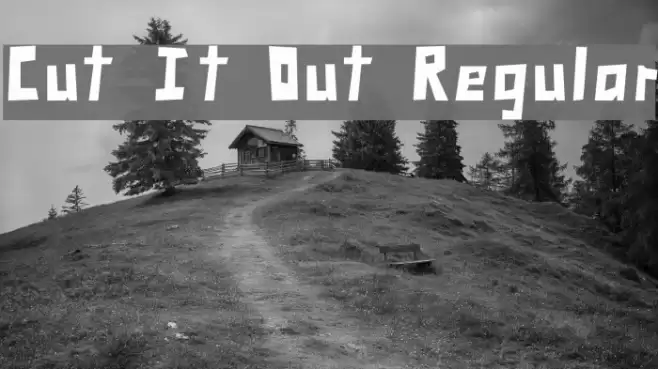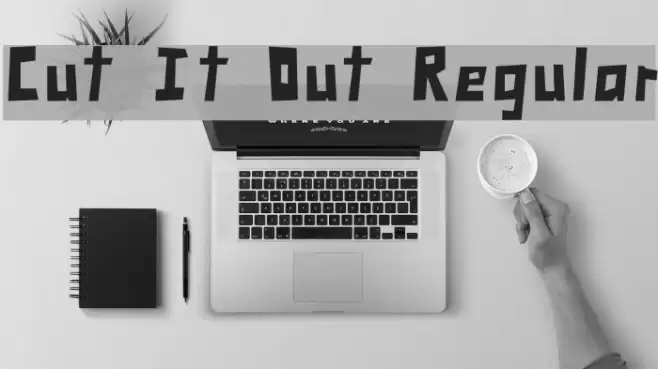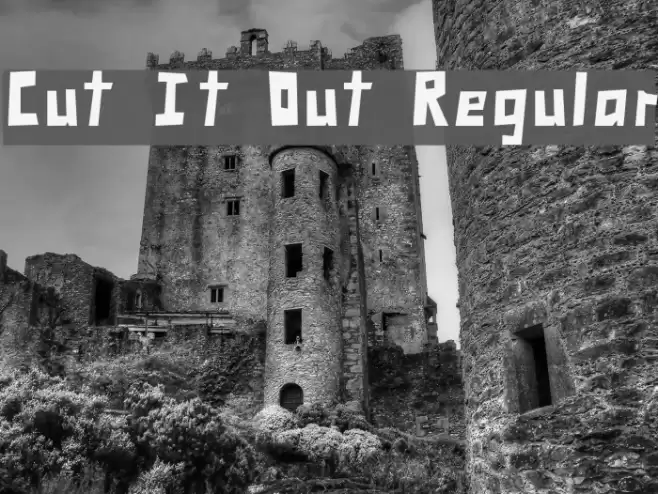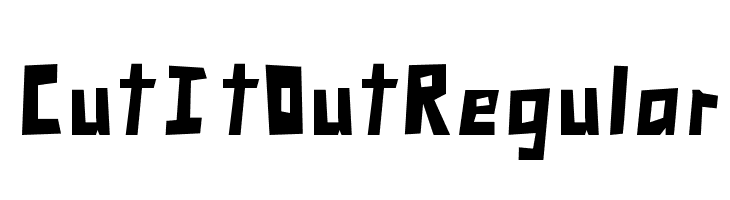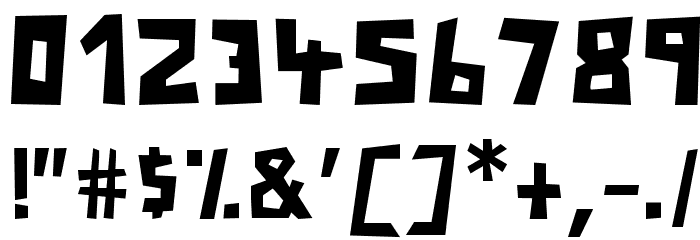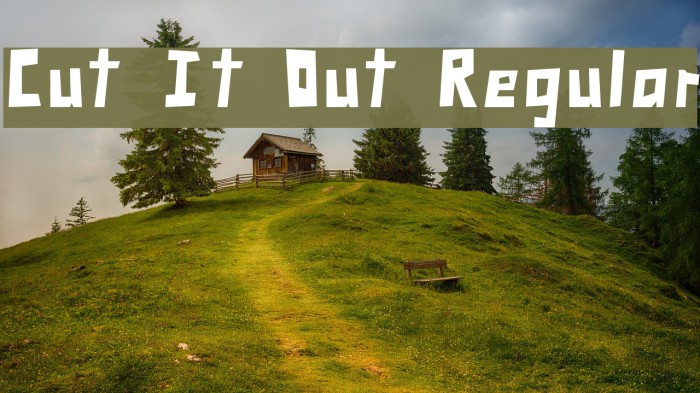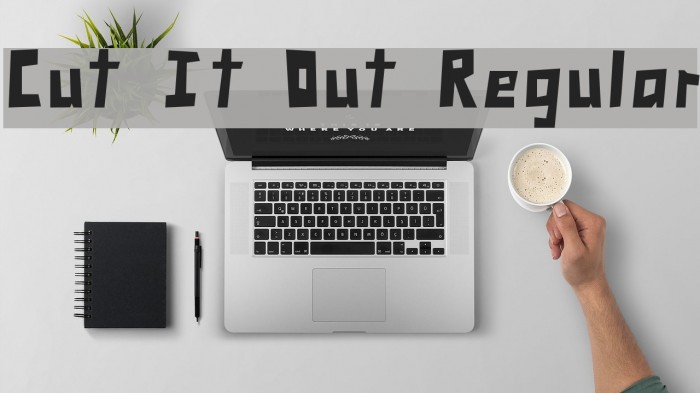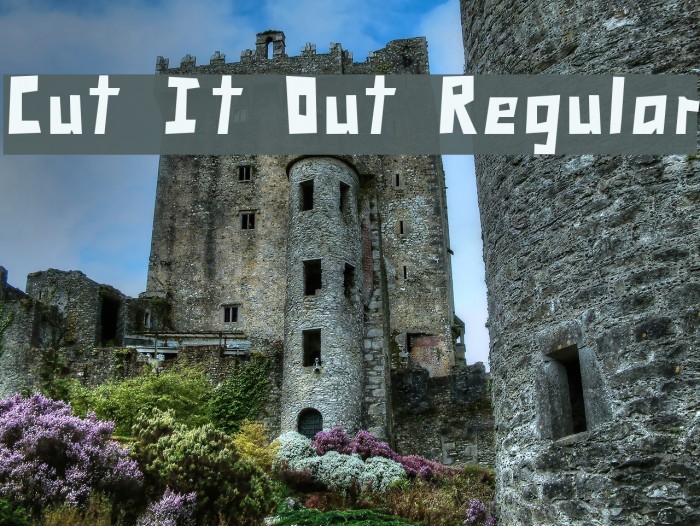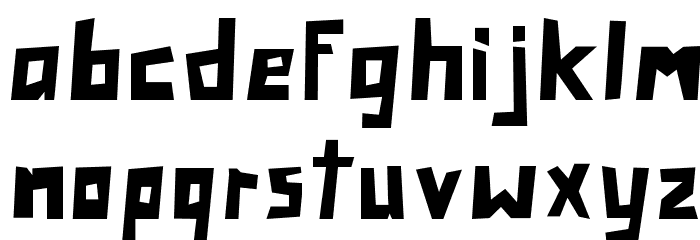
Cut It Out Regular Font
Cut It Out Regular Description
This font features a bold and playful design with irregular, jagged edges that give it a hand-cut appearance. The characters are blocky and slightly tilted, creating a dynamic and energetic feel. The uppercase and lowercase letters maintain a consistent style, with exaggerated angles and varying stroke widths. Numbers and special characters follow the same quirky aesthetic, making the font suitable for creative and informal applications. Its unique style is eye-catching and ideal for projects that require a fun and unconventional look.
A bold, playful font with a hand-cut, irregular style from Uncategorized fonts.
- Proposed Projects: Perfect for posters, children's book covers, playful branding, and creative event invitations.